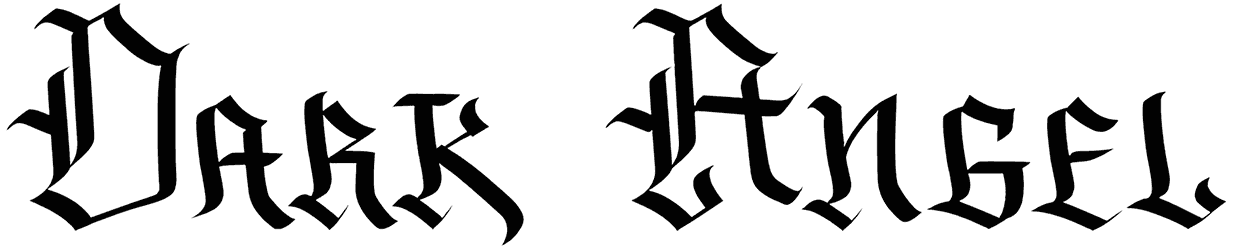
Dark Angel Font
Meet Dark Angel, a modern gothic font that comes with a thick, complex structure and two different uppercase styles. You should consider that it doesn’t support lowercase letters. This blackletter font conveys a sense of confidence and mystery to your design and will be the best choice for website titles, apparel prints, branding materials, logotypes, and posters.